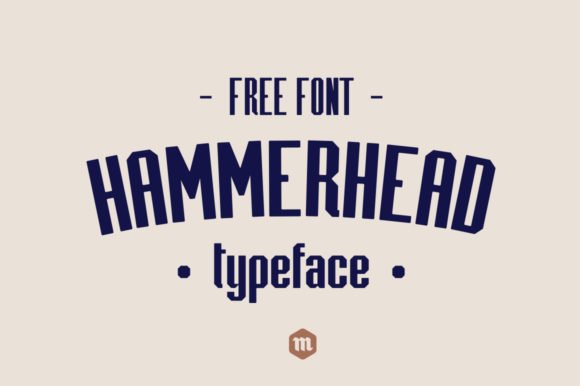
Unleash Your Creativity with the Unique Hammerhead Font
Have you ever stared at a blank canvas, unsure of where to start, until a single font sparks an idea and sets your creative juices flowing? That’s exactly what happened to me when I discovered the Hammerhead Font. Its bold, vintage charm instantly drew me in and inspired a new project.
The Hammerhead Font is a stylish sans serif typeface designed to add a touch of nostalgia and sophistication to your designs. Whether you’re working on a retro-themed poster or a modern branding campaign, this font is sure to make a statement. Its unique character and versatility make it a valuable addition to any designer’s toolkit, and a must-have for anyone looking to add some personality to their work.
With the Hammerhead Font, you’ll be able to create designs that stand out from the crowd and leave a lasting impression. So why settle for a generic font when you can unleash the bold charm of the Hammerhead Font and take your creativity to the next level?
Hammerhead Font Key Features
- Font Family: Hammerhead is a sans-serif font family designed by Monotype.
- Unique Characteristics: Hammerhead is known for its bold, modern design and geometric shapes, making it ideal for digital and print applications.
Hammerhead Font Review
Overall, I’d say the Hammerhead Font is a decent addition to any designer’s toolkit. ✨ One of the things that works well is its unique, bold aesthetic. It’s perfect for creating attention-grabbing headlines or adding a touch of industrial chic to your designs. The font’s distinct shape and angles make it stand out from more traditional sans-serif fonts.
Another advantage of Hammerhead is its versatility. ✨ It comes in a range of weights, from light to heavy, which makes it suitable for a variety of design projects. The font also supports a wide range of languages, making it a great option for multilingual designs.
- ⚠️ Readability can be a concern in certain contexts, particularly when used for large blocks of text. The font’s boldness can make it difficult to read at smaller sizes or in certain lighting conditions.
- ⚠️ Some users may find the font’s unique shape and angles to be too distracting or overwhelming. This can be particularly true in designs where subtlety is key.
Overall, I’d recommend the Hammerhead Font to designers who are looking for a bold, eye-catching option for their designs. While it may have some limitations, its unique aesthetic and versatility make it a valuable addition to any designer’s toolkit.
Tips for Getting the Most Out of Hammerhead Font
For optimal results, use the Hammerhead font in conjunction with bold or italic styles to create visual interest. Experiment with different font sizes and colors to balance your design. Additionally, consider using the font in combination with other fonts to create a unique and eye-catching visual effect.
The Hammerhead font is well-suited for use in bold headlines, titles, and captions. It can also be used for creative and modern designs, such as infographics, posters, and social media graphics. Use the font to add a touch of sophistication and elegance to your designs.